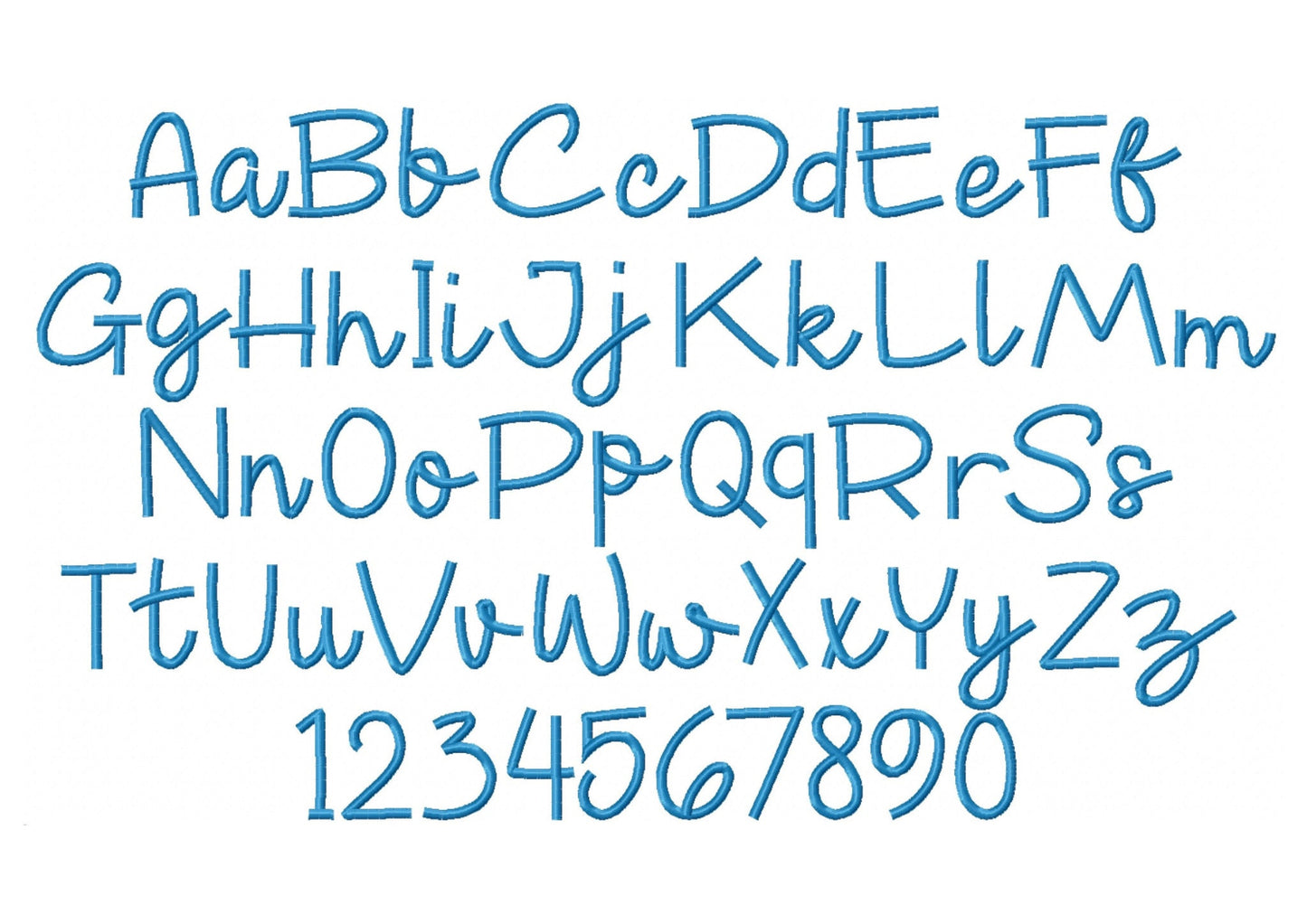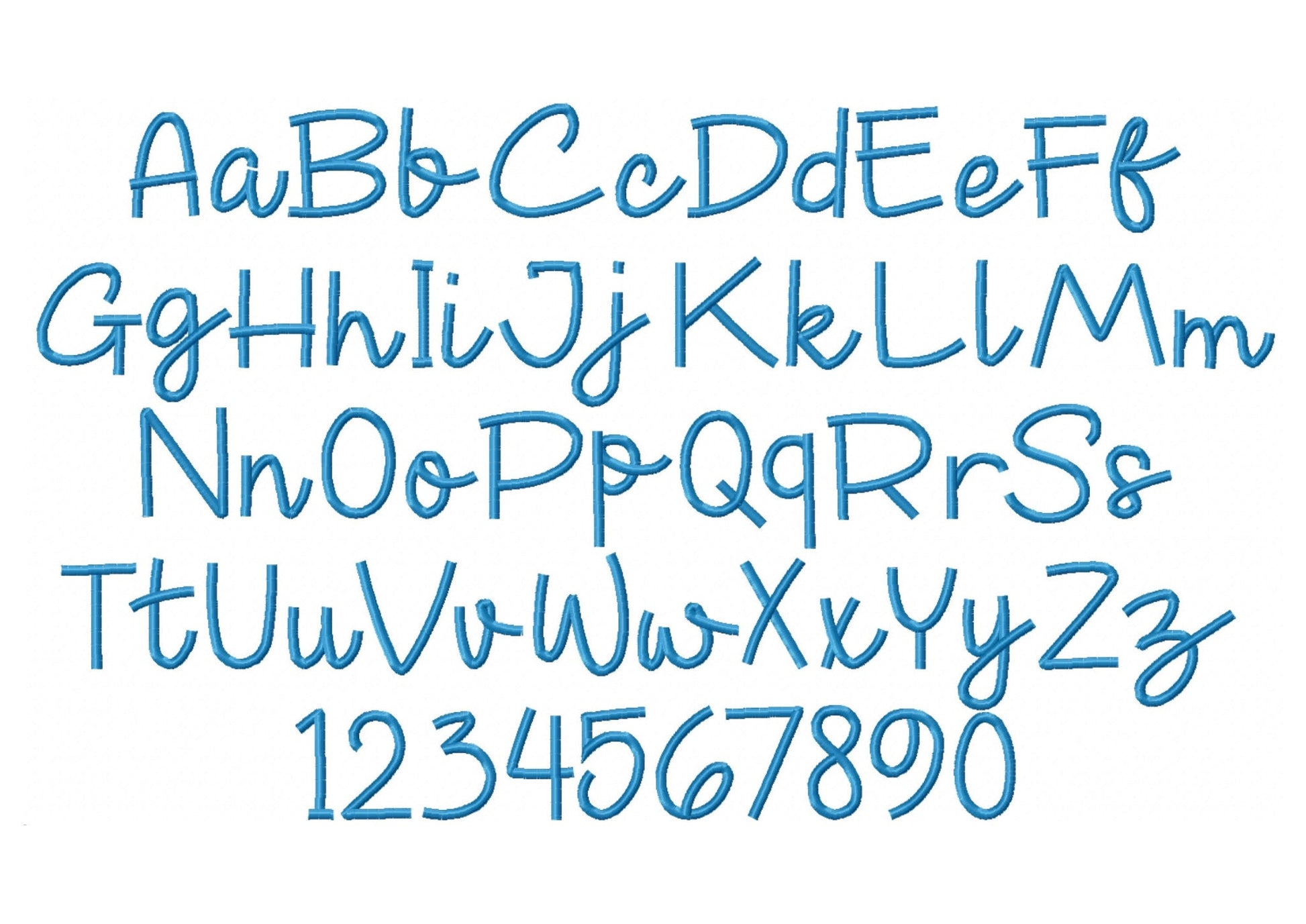
Or click to open the linkA playful satin stitch font in mini sizes for kids' names along necklines, on cuffs, pockets and small gifts.
Uppercase and lowercase letters, numbers and a few signs in eight sizes: 0.6, 0.8, 1, 1.2, 1.4, 1.7, 2 and 2.5 inches.